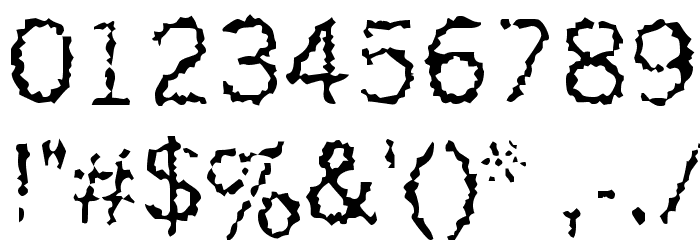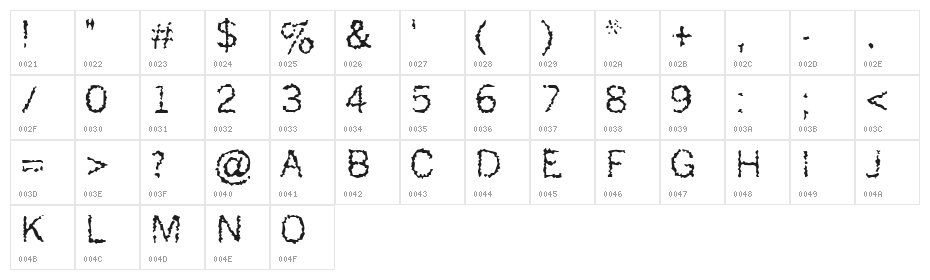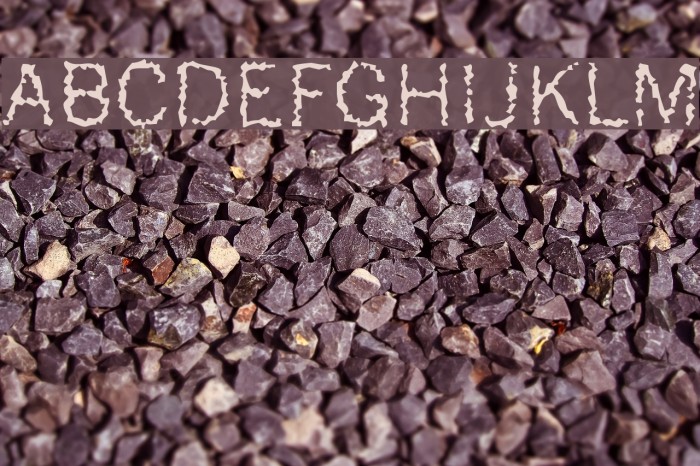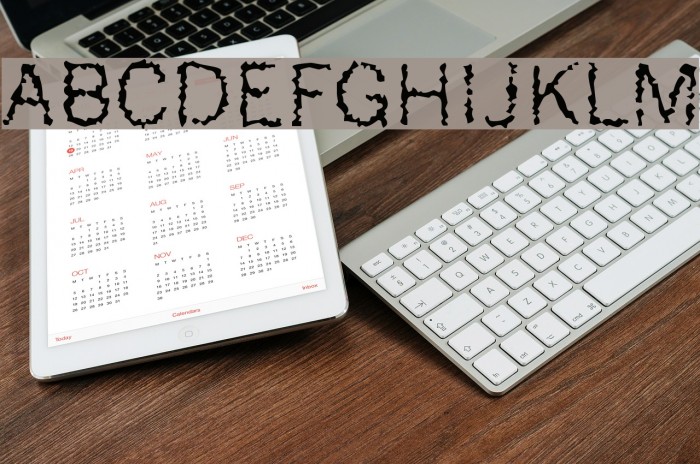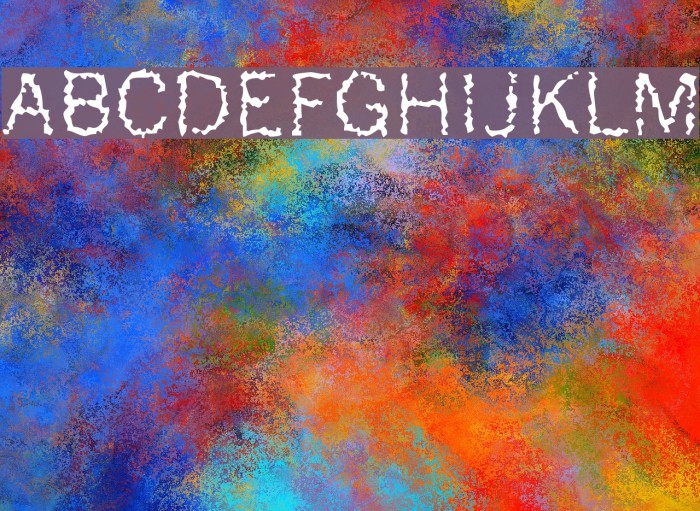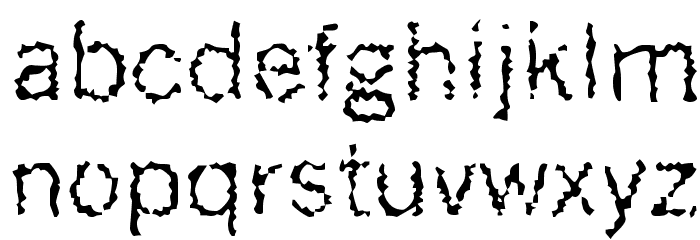
Ozlo Font
Ozlo Description
This font features a unique, jagged design that gives it a rugged and edgy appearance. The characters are composed of irregular, sharp edges that create a sense of movement and energy. This style is reminiscent of natural textures, like torn paper or rough stone, making it stand out as a bold choice for creative projects. The uppercase and lowercase letters maintain a consistent style, with numbers and special characters following suit. This font's distinctive look is ideal for projects that require a strong visual impact.